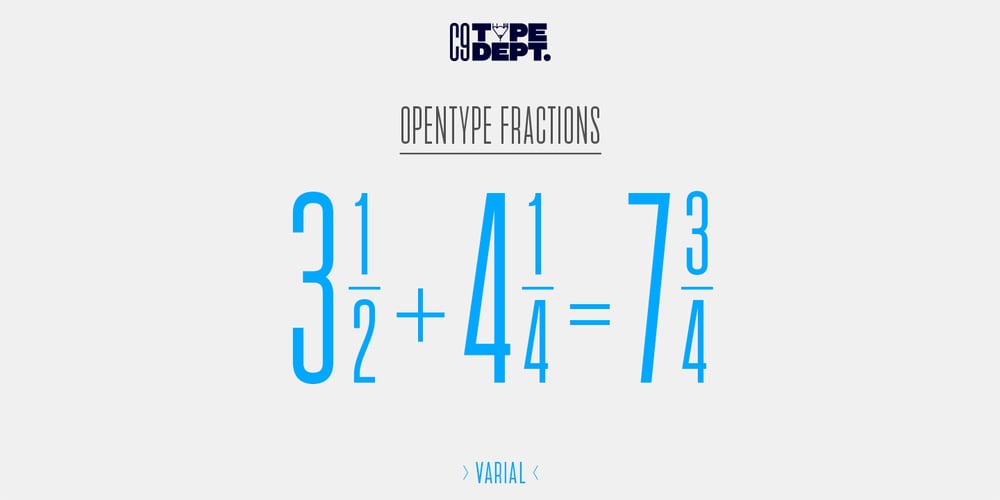
Varial
Varial font
Varial Font Family was designed by Jani Paavola and published by Cloud9 Type Dept. Varial contains 1 styles and family package options. Varial typefaces are extra-condensed Opentype™ sans-serifs with small caps, extended character set (european languages support) and extra features (fractions, ligatures and alternatives).